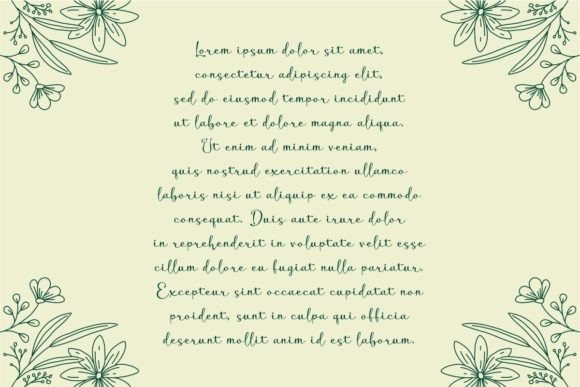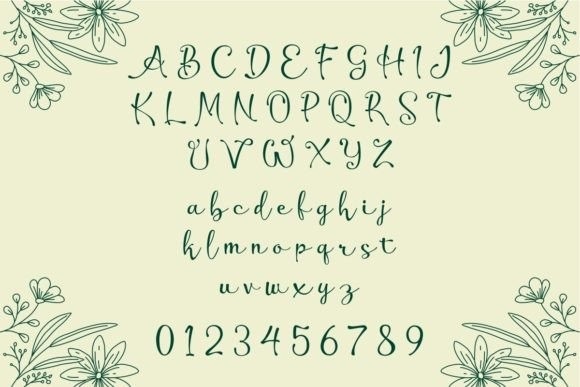
Abeela Font
Abeela Font is a graceful calligraphy font that brings an elegant and artistic touch to your projects. With flowing strokes and a timeless aesthetic, it adds a touch of sophistication to any text. Perfect for invitations, cards, or any design that calls for a touch of refined beauty, Abeela effortlessly combines classic style with a modern flair. Elevate your creations with this enchanting calligraphy font, making every word a work of art.